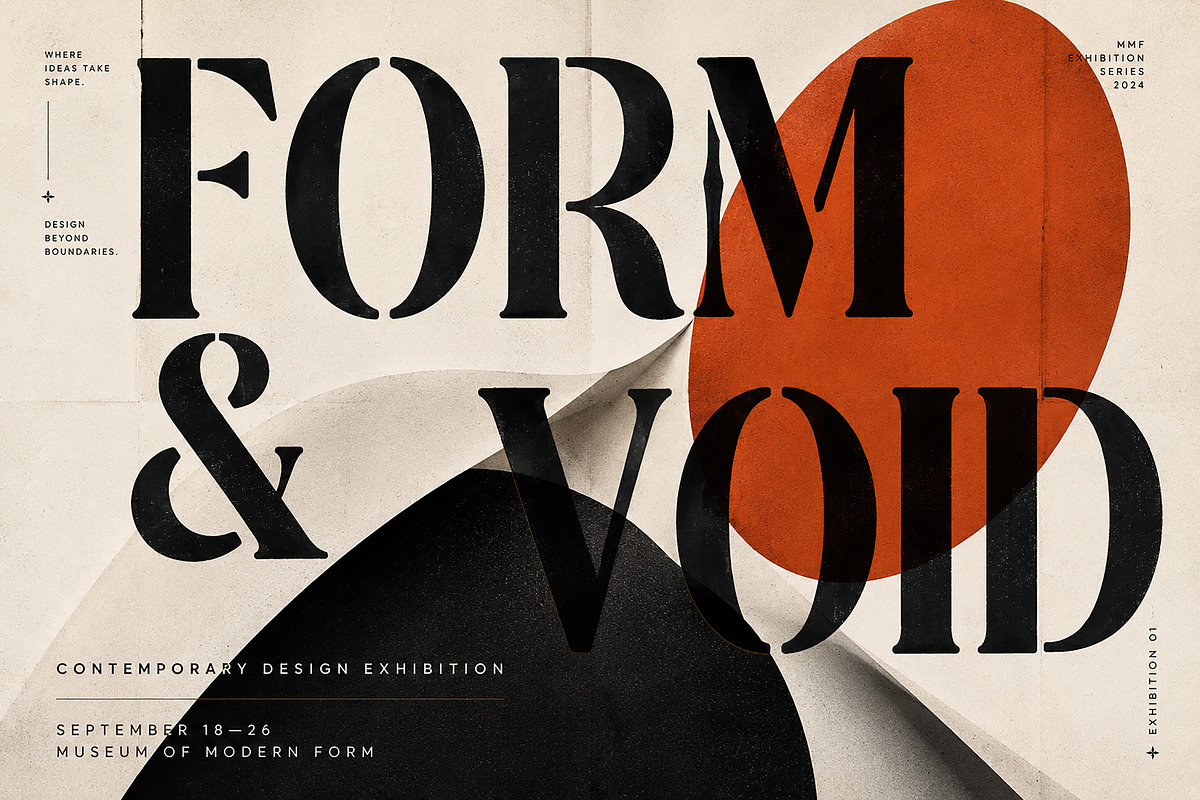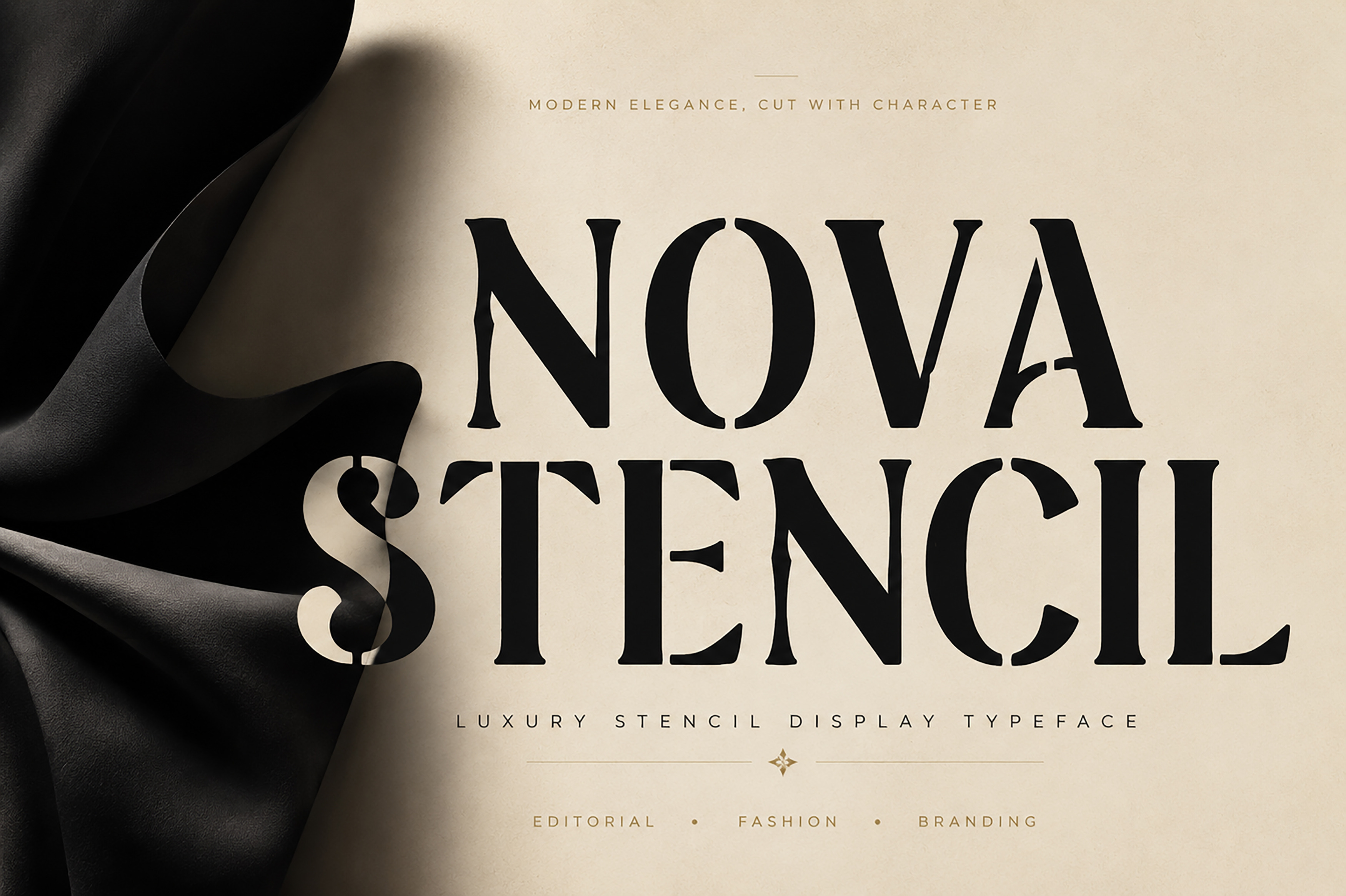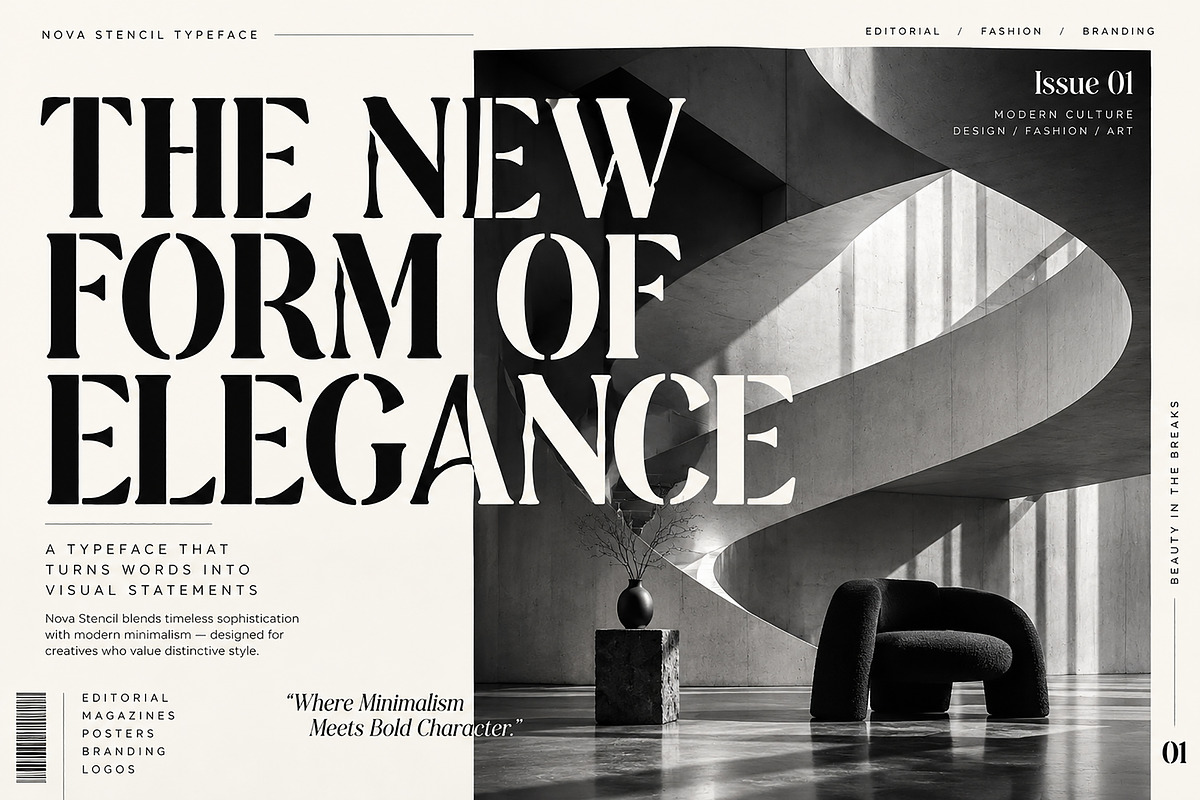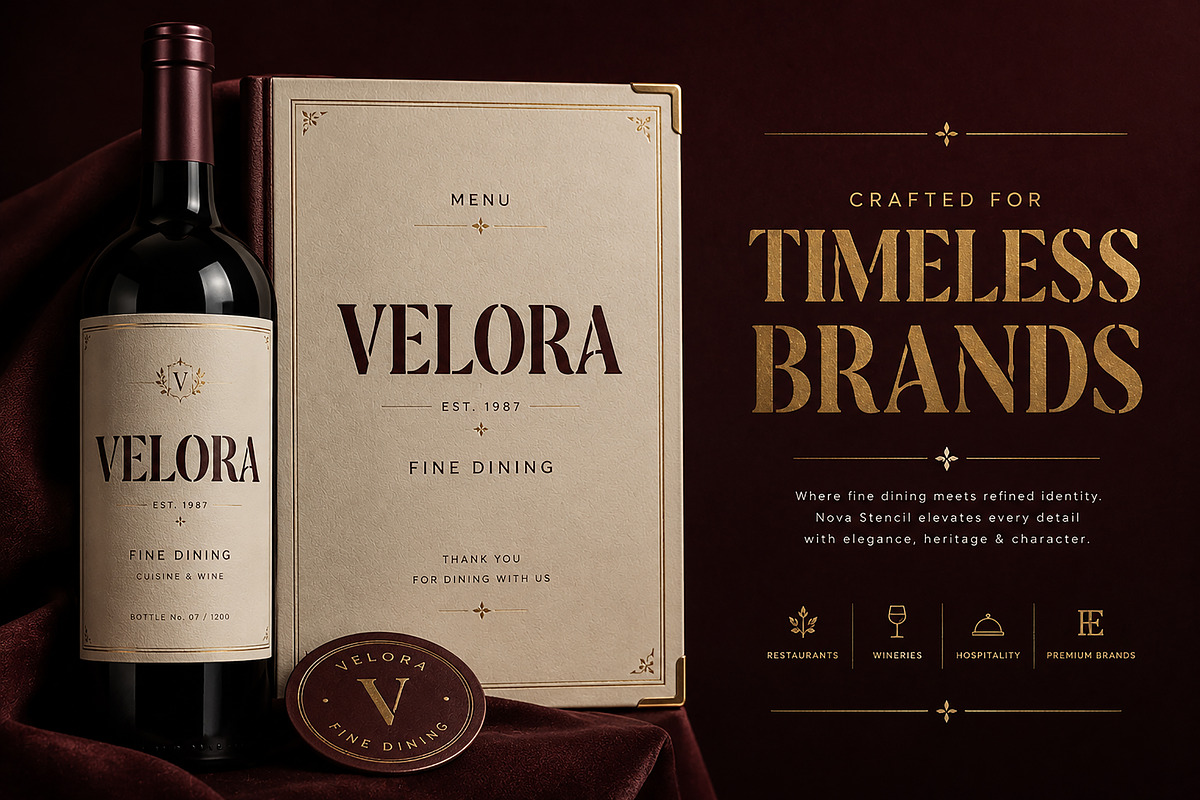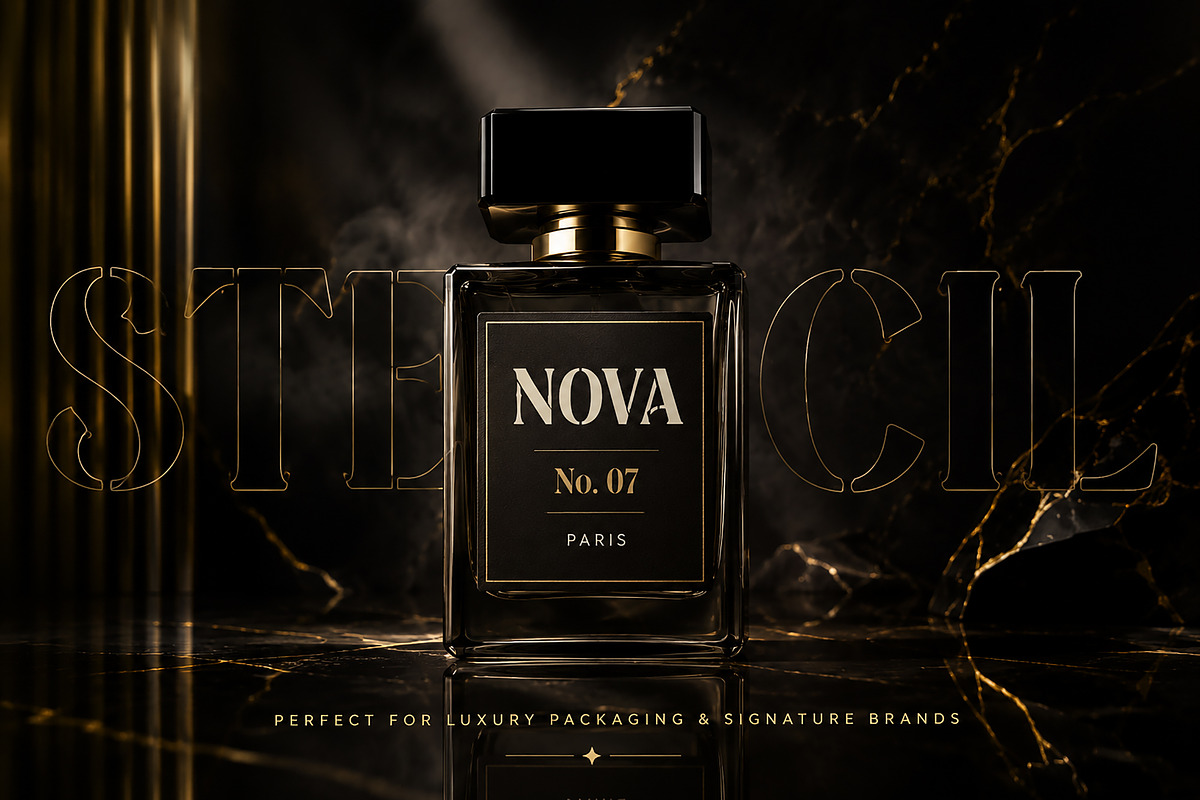
Nova Stencil – Luxury Serif Font
Nova Stencil – Luxury Display Stencil Serif Font
Short Description
Nova Stencil is a premium display stencil serif typeface designed for luxury branding, editorial layouts, packaging, fashion campaigns, restaurant identities, wine labels, and artistic posters. Combining elegant serif proportions with carefully crafted stencil cuts, it delivers a sophisticated balance between classic refinement and contemporary style.
Whether you're designing a high-end logo, premium packaging, magazine cover, or striking poster, Nova Stencil adds bold character and timeless elegance to every project.
Full Description
Introducing Nova Stencil, a modern luxury stencil serif font created for designers who want their typography to make a lasting impression.
Unlike traditional industrial stencil fonts, Nova Stencil blends refined serif details with clean stencil breaks, creating a distinctive typeface that feels both elegant and contemporary. The result is a versatile display font that works beautifully across luxury branding, editorial design, hospitality, premium product packaging, and creative advertising.
Its strong letterforms and carefully balanced contrast make headlines stand out while maintaining excellent readability in large display sizes.
Perfect for creative professionals, branding agencies, fashion designers, packaging specialists, and editorial designers looking for a unique premium typeface.
Luxury Branding
Fashion Campaigns
Editorial Design
Magazine Covers
Premium Packaging
Perfume Branding
Wine Labels
Restaurant Identity
Café Branding
Hotel Branding
Beauty Brands
Cosmetic Packaging
Poster Design
Museum Exhibition Posters
Advertising Campaigns
High-End Marketing Materials
Signature Branding
Why You'll Love Nova Stencil
Premium luxury aesthetic
Elegant stencil serif design
Clean and modern letterforms
High-impact display typography
Perfect for branding and editorial work
Professional and timeless appearance
Suitable for print and digital projects
Carefully balanced spacing
Designed for designers who value sophistication